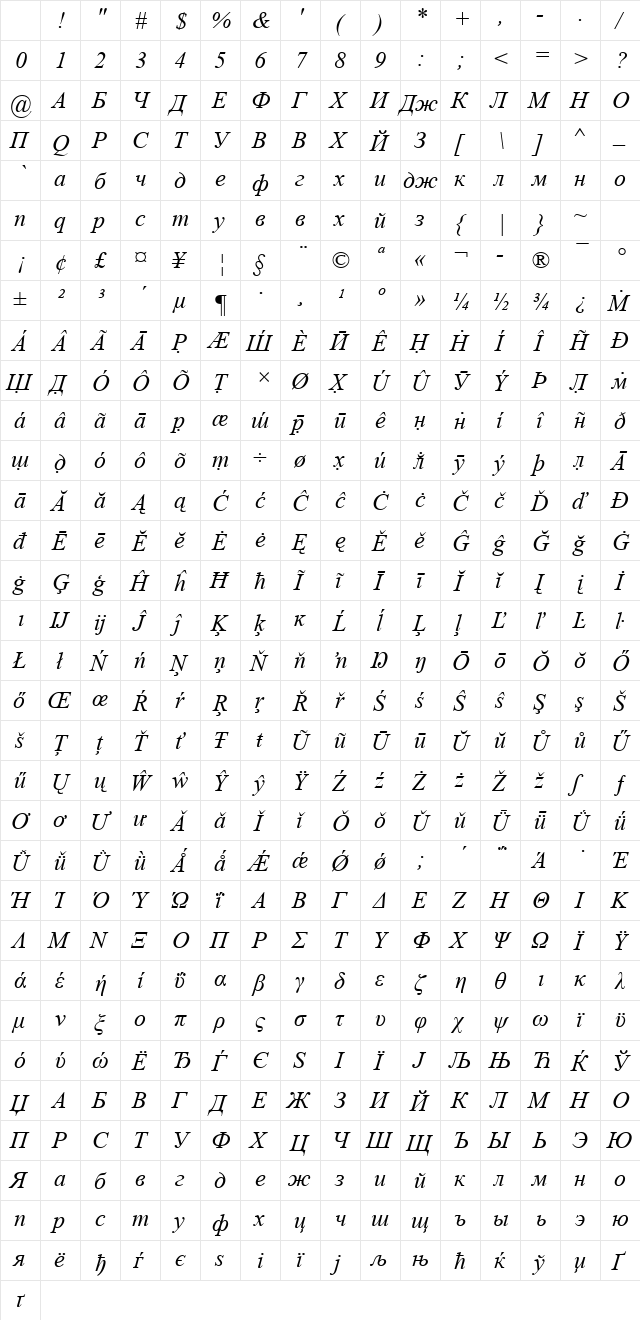
AKAMA is a composed and adaptable typeface that performs quietly and consistently across a wide range of design contexts. The slanted form adds forward momentum and visual energy.
Pro Tip: Use AKAMA for emphasis, pull quotes, and subheadings where its slanted energy can add rhythm to the layout.